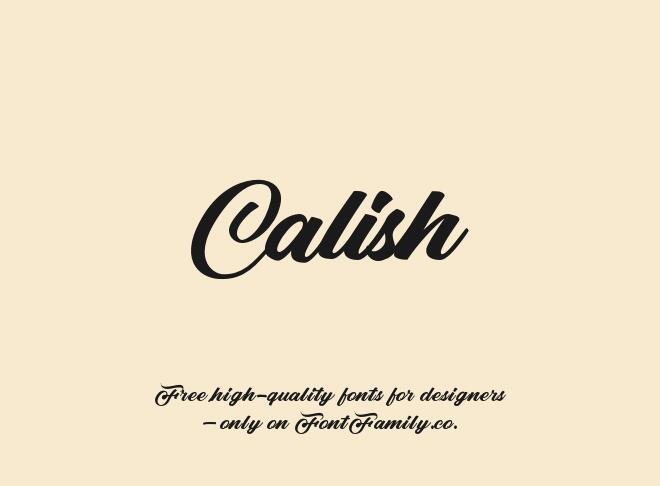
Calish Font
Calish Font is a fresh, modern handwritten font that exudes a playful yet elegant spirit. This font, designed by the renowned Calish Foundry, is characterized by its unique, decorative style that can add a touch of charm to any design. It's a great choice for designers looking to infuse their projects with a personal, human touch. Its playful nature makes it perfect for logos, branding, greeting cards, and any design that requires a fun, friendly vibe. Moreover, its modern touch makes it a great alternative to traditional handwritten fonts. With its beautifully balanced and flowing characters, Calish Font stands out as a versatile choice for a wide range of design projects. It's free for personal use, making it an excellent resource for designers on a budget.